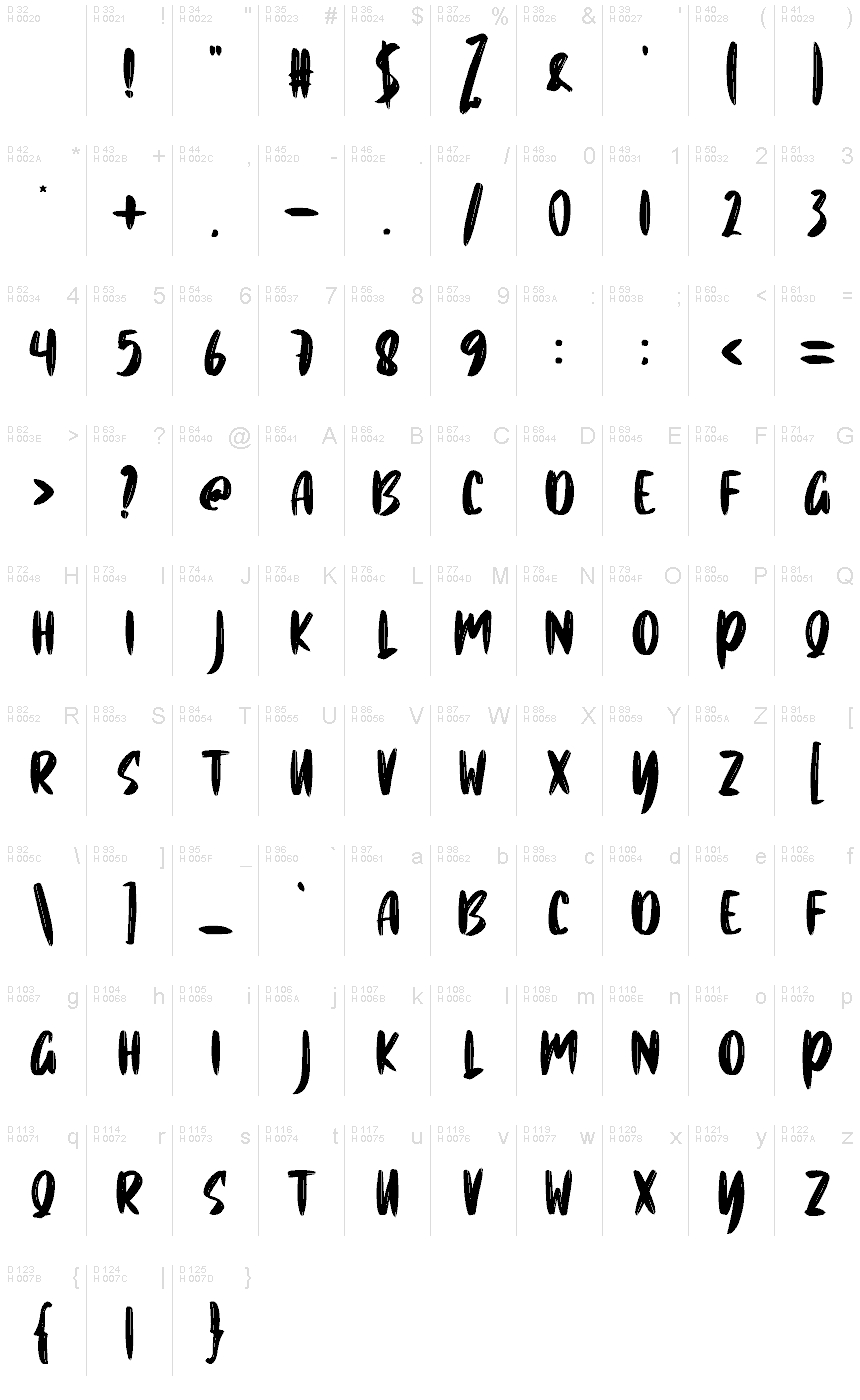
Gobase
Gobase font by Skiiller Studio is a free brush-lettered handwriting font with energetic letters in a condensed, yet bold style. It carries an urban aesthetic that can be noticed from its casual and relaxed penmanship style. With a modern, artistic flair and expressive brushstroke textures, this handwritten typeface finds an easy route into contemporary projects.
Use Gobase for your typography needs on branding designs, product packaging, book covers’ lettering, and magazine covers too. Posters and flyers written with it will certainly invite the reader to check out the rest of the printed content.